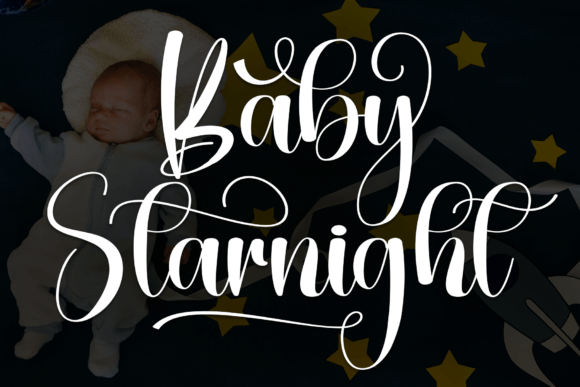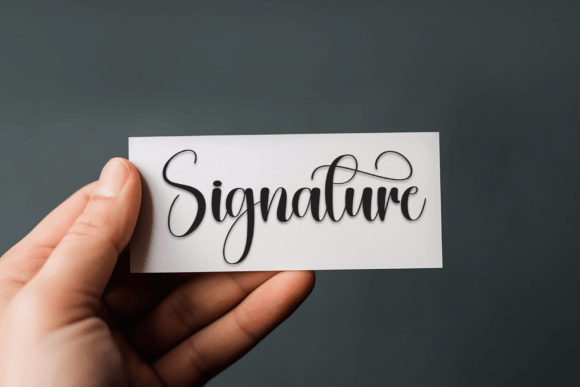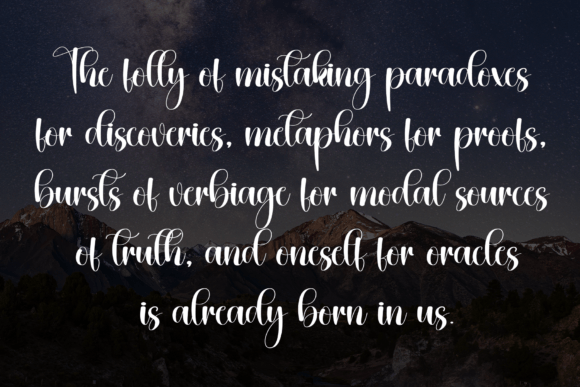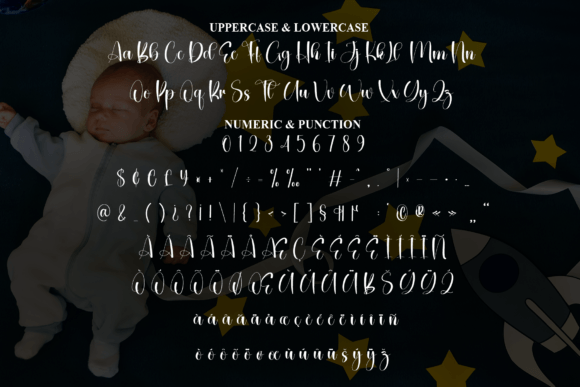
The Perfect Font for a Child’s Special Moment
Have you ever found yourself rummaging through your font collection, searching for the perfect script to match the excitement and joy of a child’s special day? Maybe it’s a birthday party invitation, a baby shower announcement, or a graduation certificate. Whatever the occasion, you want your design to feel warm, inviting, and truly special.
That’s where the Baby Starnight Font comes in – a sweet, handwritten font that’s designed to capture the whimsy and magic of childhood. With its soft, rounded letters, Baby Starnight Font is the perfect choice for kids’ designs, invitations, and other projects that require a playful touch. Whether you’re a seasoned designer or just starting out, this versatile font is a valuable addition to your collection.
Baby Starnight Font Key Features
- Unique Characteristics: Whimsical, cursive, and handwritten style with a touch of fantasy and magic
Designer Review: Baby Starnight Font
Overall, I think the Baby Starnight Font is a charming and whimsical addition to any design project. ✨ The font’s unique combination of cursive and handwritten elements creates a friendly and approachable feel that’s perfect for projects targeting a younger audience or those with a touch of nostalgia.
- ✨ The font’s soft, rounded edges and subtle irregularities make it a great choice for projects where a more personal, handwritten feel is desired.
- ✨ The font’s x-height is well-balanced, making it easy to read and understand even at smaller font sizes.
- ✨ The font’s versatility makes it suitable for a wide range of projects, from children’s books to social media graphics.
However, there are some limitations to consider: ⚠️ The font’s irregularities can sometimes make it difficult to achieve consistent spacing and alignment. ⚠️ Additionally, the font may not be the best choice for projects that require a more formal or professional tone.
Overall, I think the Baby Starnight Font is a great choice for designers looking to add a touch of whimsy and personality to their projects. While it may have some limitations, its unique charm and versatility make it a valuable addition to any design library.
Tips for Getting the Most Out of the Baby Starnight Font
For the best results, use the Baby Starnight Font in combination with a bold, contrasting color to make your text stand out.
Experiment with different font sizes and styles to create a visually appealing design.
The Baby Starnight Font is ideal for:
- Children’s book covers and illustrations
- Baby and nursery-themed designs
- Use the font for the nursery’s theme name, “Woodland Wonderland”.
- Choose a light blue or lavender background to match the softness of the font.
- Combine the font with illustrations of woodland creatures, such as rabbits, owls, and foxes.
- Use a mix of bold and cursive fonts to add visual interest.
- Choose a color palette that is calming and soothing, such as shades of blue, green, and neutral tones.
- Don’t forget to add some texture and pattern to the design, such as a wood-grain background or a leaf-patterned rug.
- Use the font for the invitation’s main text, such as the wedding date and time.
- Choose a soft pink or peach background to match the sweetness of the font.
- Combine the font with illustrations of flowers, vines, and other garden elements.
For optimal readability, we recommend using the Baby Starnight Font at a minimum size of 12 points and a line height of at least 1.5 times the font size. This will ensure clear and legible text in most applications and environments.